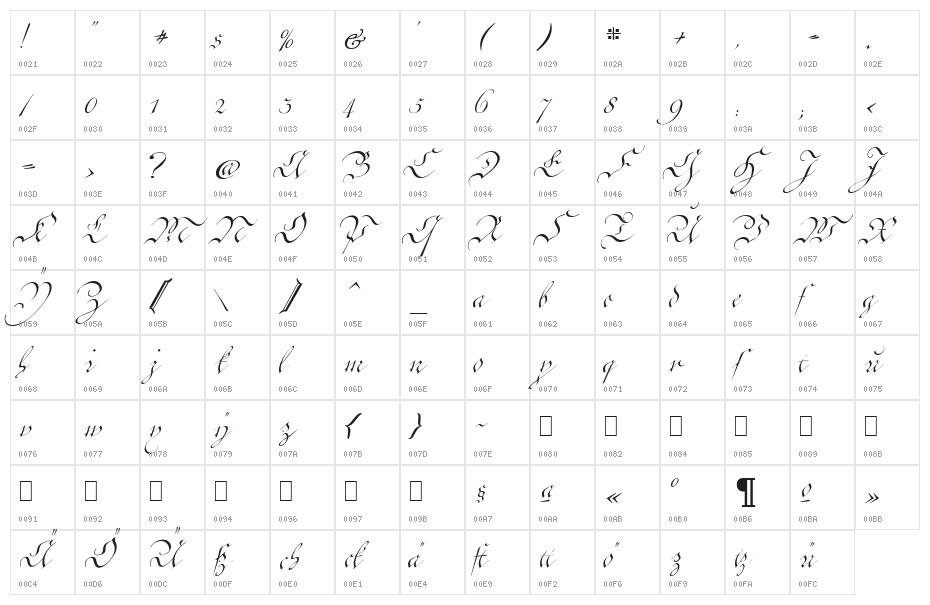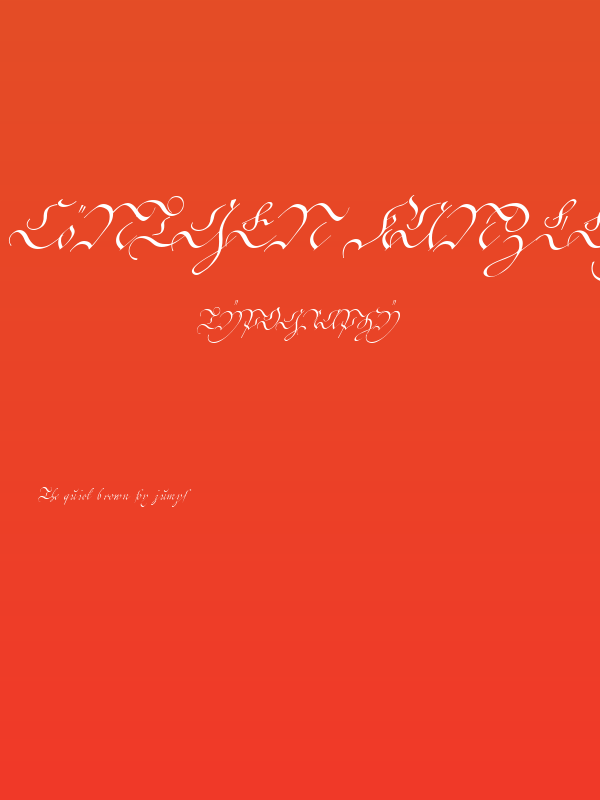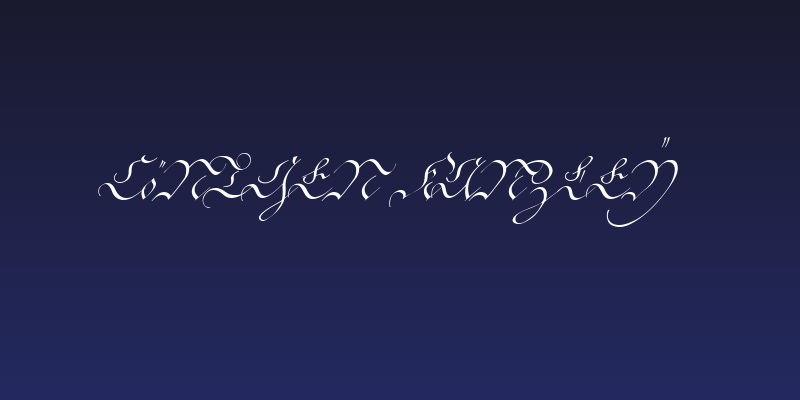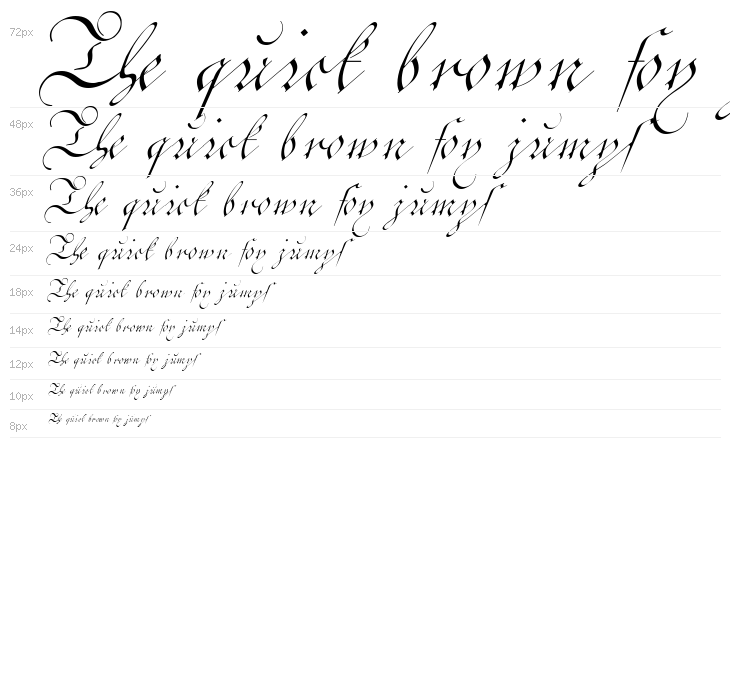
Cöntgen Kanzley Font
Cöntgen Kanzley Description
This font exudes elegance and sophistication with its intricate and flowing script style. Each character is crafted with high contrast between thick and thin strokes, giving it a dynamic and graceful appearance. The uppercase letters are particularly ornate, featuring elaborate swirls and flourishes that add a touch of grandeur. The lowercase letters maintain a consistent style, with smooth curves and delicate lines that enhance readability while retaining an artistic flair. The numerals and special characters are designed to complement the overall aesthetic, ensuring a cohesive look across all text. This font is ideal for projects that require a touch of luxury and refinement.
Overall StyleElegant
Use CaseLogos, Invitations, Branding
Proposed ProjectsWedding invitations, luxury branding, elegant packaging, formal event programs, high-end product labels.